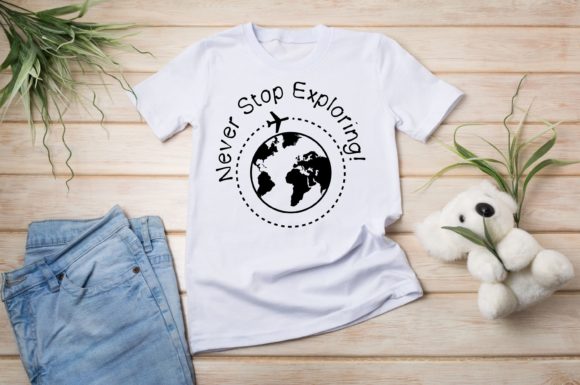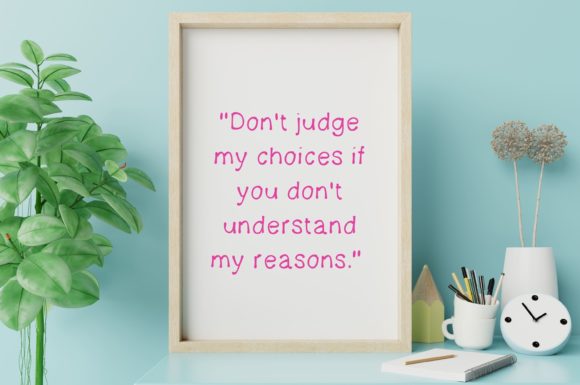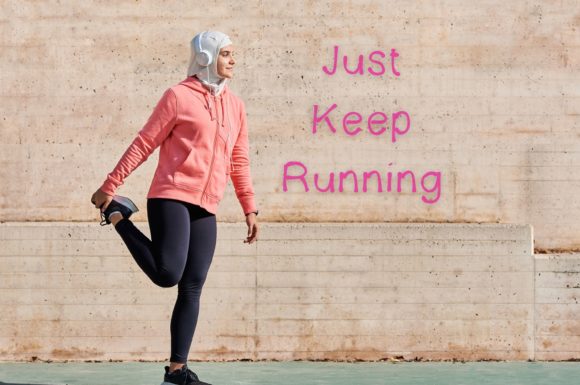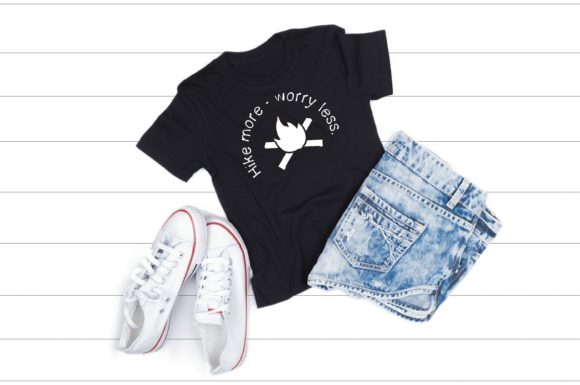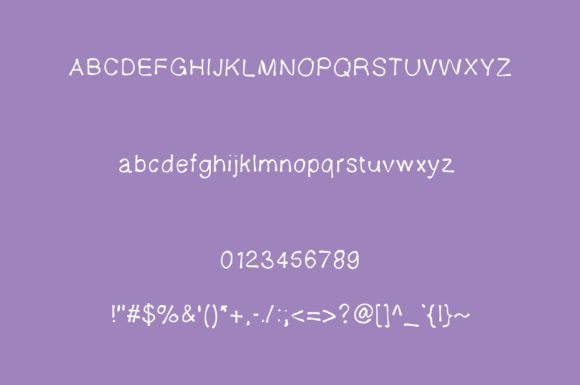
The Easy Font: A Designer’s New Best Friend
I’ll never forget the time I was working on a project for a client who needed a clean and simple font for their business reports. I had spent hours scouring the internet for the perfect font, but nothing seemed quite right. That was until I stumbled upon the Easy font. It was love at first sight! 💕
Easy is a cute, simple, and clean handwritten font that’s perfect for a variety of design projects. In this article, I’ll share my experience with the Easy font, including what I love about it, its limitations, and how to use it on different platforms.
What I Love About Easy Font
- ✨ Cute and playful: Easy font has a charming, handwritten feel that’s perfect for designs that need a personal touch.
- ✅ Highly legible: The font is clean and simple, making it easy to read even at small sizes.
- 💼 Versatile: Easy font is suitable for a wide range of design projects, from book texts and documentation to business reports and advertisements.
While I love the Easy font, there are a few things to keep in mind:
- 🤔 Limited character set: Easy font may not have all the characters you need for certain projects, so be sure to check the font specs before using it.
- ⚠️ Not suitable for body text: While Easy font is great for headings and titles, it may not be the best choice for body text due to its playful nature.
The Easy font was designed with the goal of creating a clean and simple handwritten font that’s easy to read and versatile. The designer, who wishes to remain anonymous, was inspired by classic handwritten fonts and wanted to create a font that’s both modern and timeless.
Q: What is the Easy font?
A: The Easy font is a clean and simple handwritten font suitable for a wide range of design projects.
Q: What are some common uses for the Easy font?
A: The Easy font is suitable for book texts, documentation, business reports, business correspondence, magazines, newspapers, posters, advertisements, multimedia, and corporate design.